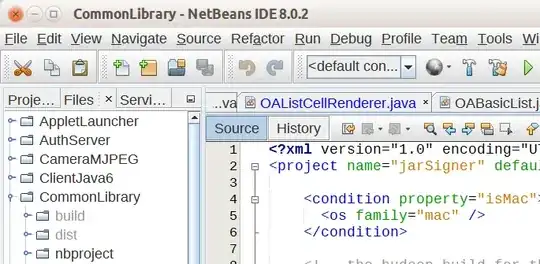
I'm having problems getting the Netbeans font to look nice, this has been a problem ever since I tried Ubuntu ~8. For some reason fonts look like they're not getting subpixel smoothing in Netbeans only, for the rest of the applications they look perfect.
Look at how ugly the screenshot is:
It's not just the code area but every font in the application looks this way. I was looking around and apparently adding the following line to the .bashrc file should fix the issue but in my case it didn't:
export _JAVA_OPTIONS='-Dawt.useSystemAAFontSettings=lcd'
It think it might only affect Java based applications, but I haven't been able to test another Java app to check the fonts out.
Does anyone know what can I do to fix this? How can I make Netbeans use the system font?
• I've also looked and looked for a fix for this, but there just doesn't seem to be one. Specifically it affects Swing-based applications; you'll find that Eclipse, for example, looks fine. I'm actually not too bothered about the code font (it's changeable, and I find that it looks OK with Droid Sans Mono at 11pt) but the chrome fonts really irk me. – Jamie Schembri Mar 30 '11 at 18:00
• Yes it seems to affect only java based apps, I'm thinking about changing my IDE just because of this.. – Javier Villanueva Apr 05 '11 at 15:03
• Actually, I specifically mentioned Swing because the font problem is not visible in SWT applications, such as Eclipse. Either way, though, it only affects (some) Java applications. Also, I can confirm that the problem is still there in Netbeans 7.0 RC1. – Jamie Schembri Apr 06 '11 at 20:07
• You're right I switched to Aptana and they look fine there, hope I can find fix for this I really like Netbeans but those font were driving me crazy. – Javier Villanueva Apr 08 '11 at 03:55
I'm using now 'Droid Sans Mono', size 16 with '-J-Dawt.useSystemAAFontSettings=on --laf javax.swing.plaf.nimbus.NimbusLookAndFeel -J-Dsun.java2d.noddraw=true -J-Dsun.java2d.dpiaware=true' – Karussell Aug 28 '14 at 13:08
• I have multiple Netbeans configurations running on Ubunty depending on which compiler9s) I need. They are _**ALL**_ fixed by using the `-J-Dawt.useSystemAAFontSettings=on` setting identifed by @Karussell, @Ioxaxs and the answer from [Kevin RED](https://askubuntu.com/a/981432/62638) below. Very simple, very effective -- Looks like I am the only up-vote so far. Also I use "`maximise native look and feel`" because the dialogue boxes then open with the cursor on the _usual_ field, e.g. file open. And not the Swing "top of panel" (or _whatever_). – will Dec 14 '18 at 01:38
As has been stated in the comments, this is a problem with Java Swing apps on Linux. Swing does use Gnome's font smoothing settings (deactivated, greyscale or subpixel) - it disregards the hinting settings though. It always uses full hinting, and if you're running Ubuntu with little or no font hinting (as most people do since little hinting is the default setting) this will make the font appear significantly different than in other applications. SWT applications like Eclipse are fine, but if you like Netbeans this isn't gonna help you.
Caveat: For the following workaround I'm only talking about the editor font, because in an IDE that's what's important to me. You could also apply it to the menu fonts etc, but that might be a little over the top.
The only usable solution I found here : use Fontforge to edit your editor font of choice and remove all hinting information from the font itself, then save it as a new font and use that in Netbeans.
1. sudo apt-get install fontforge
2. Launch Fontforge
3. Open your font of choice
4. Ctrl+A or edit -> Select all to select all characters
5. Hints ⇒ Clear instructions
6. Ctrl+Shift+F or element -> font info to open the font info
7. Rename font (e.g. to original name + '_nohints')
8. Save edited font in the .fonts directory in your home, through file -> generate fonts, making sure to use a format that Ubuntu reads (see next step)
9. Clear font cache fc-cache -rv - following its output to make sure your new font file was picked up (e.g. .sfd doesn't but .ttf does).
10. Run Netbeans and use the font you created as editor font
No, not perfect and yes, a bit of a hassle, but still a world of difference. Hope that helps.
I don't know if that is a good answer, because it may not work everywhere, but certainly - trying by switching JDK (be it OpenJDK or Oracle JDK) you may see a difference.
I was having the same issue on Mint 12. I solved it by entering the "Advanced Settings"->"Fonts" and reducing the default font from 11 to 10. I lowered all the fonts in the list to consistency.
There must be some problem with the Cantarell 11 font.